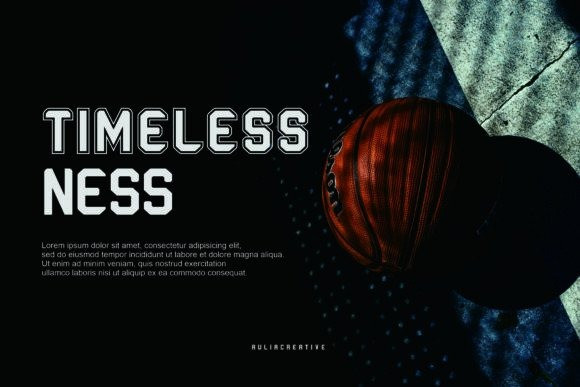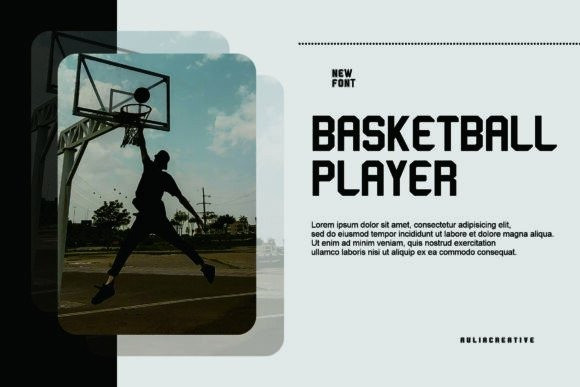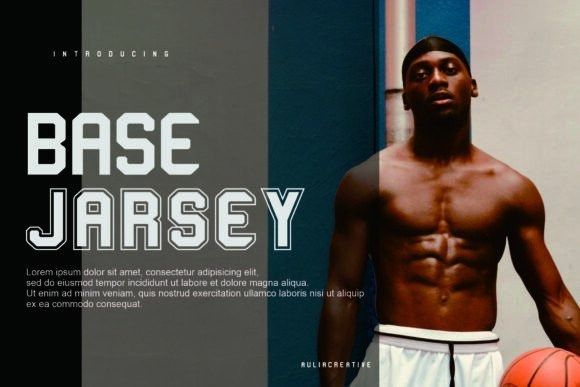
Base Jarsey Font
Base Jarsey Font – Base jarsey Sport & Font and Authentic Display Shirt. a strong, confident and powerful typeface designed to suit sports logos, club branding, apparel applications, labels and more.